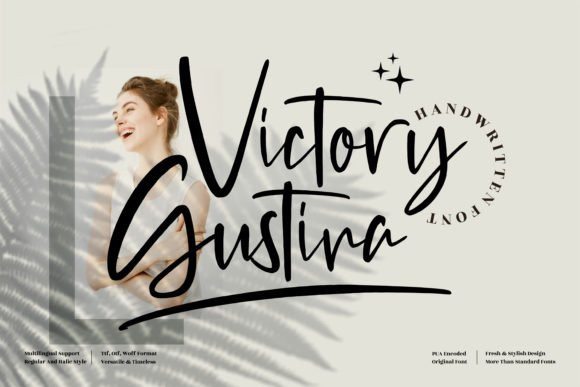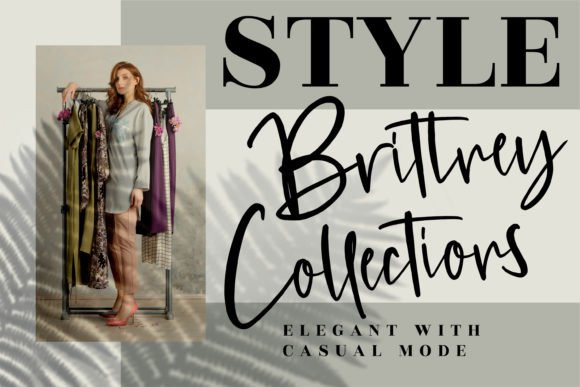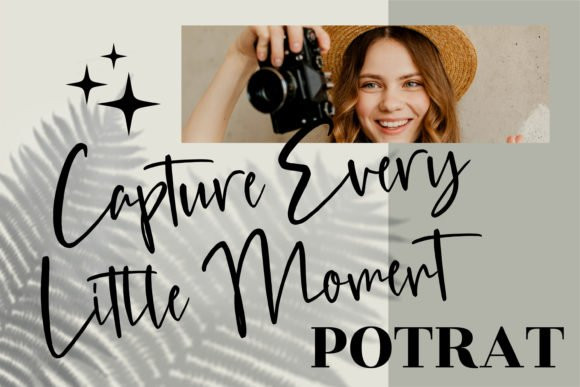
Victory Gustina Font
Victory Gustina is a lovely and delicate script font that exudes elegance and class. This font was particularly crafted for those who need a beautiful and refreshing look to their designs.